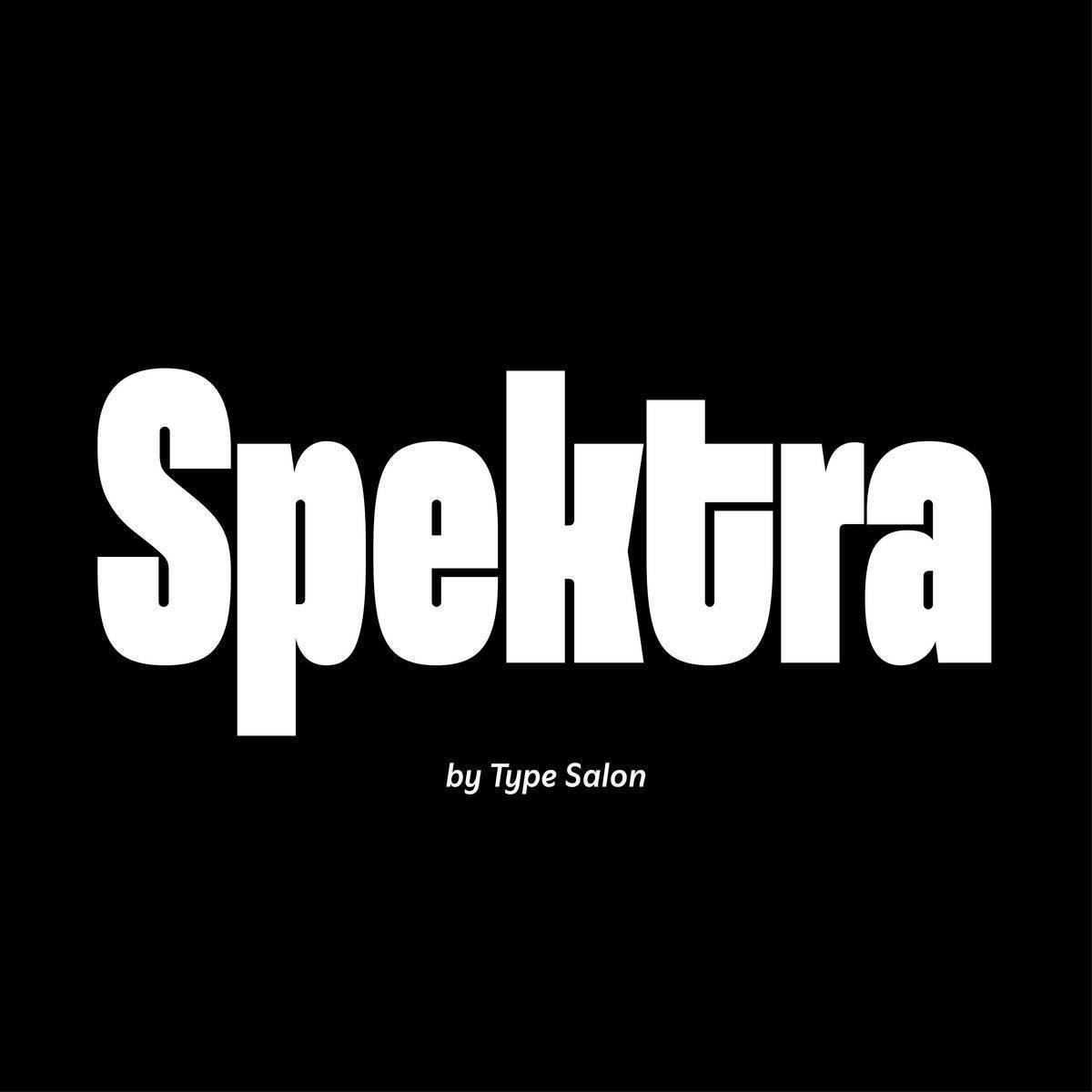
Spektra is a reasonably ironical display variable font, ranging from backslant to italic axis. The family supports many script systems other than Latin and Cyrillic, including Hebrew, Arabic, and Greek. The multilinguality of this typeface defines its character — democratic and cosmopolitan, it combines the specifics of many different scripts.